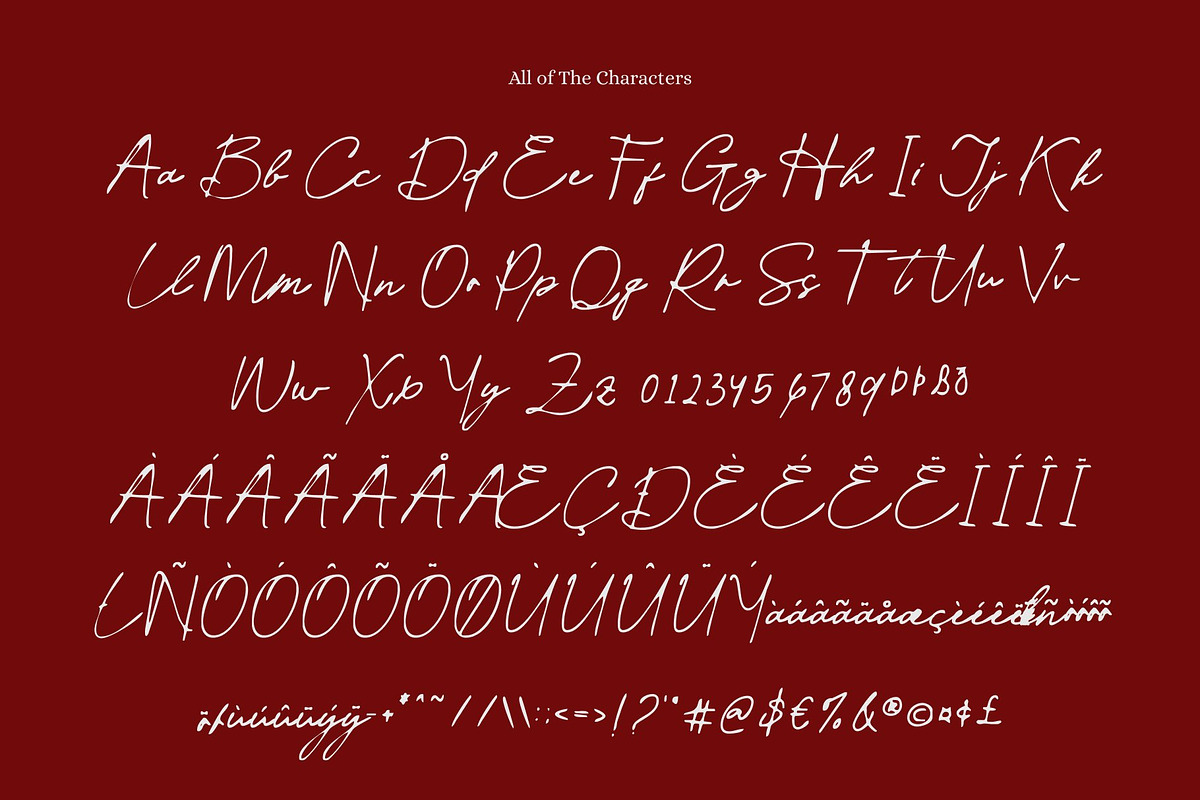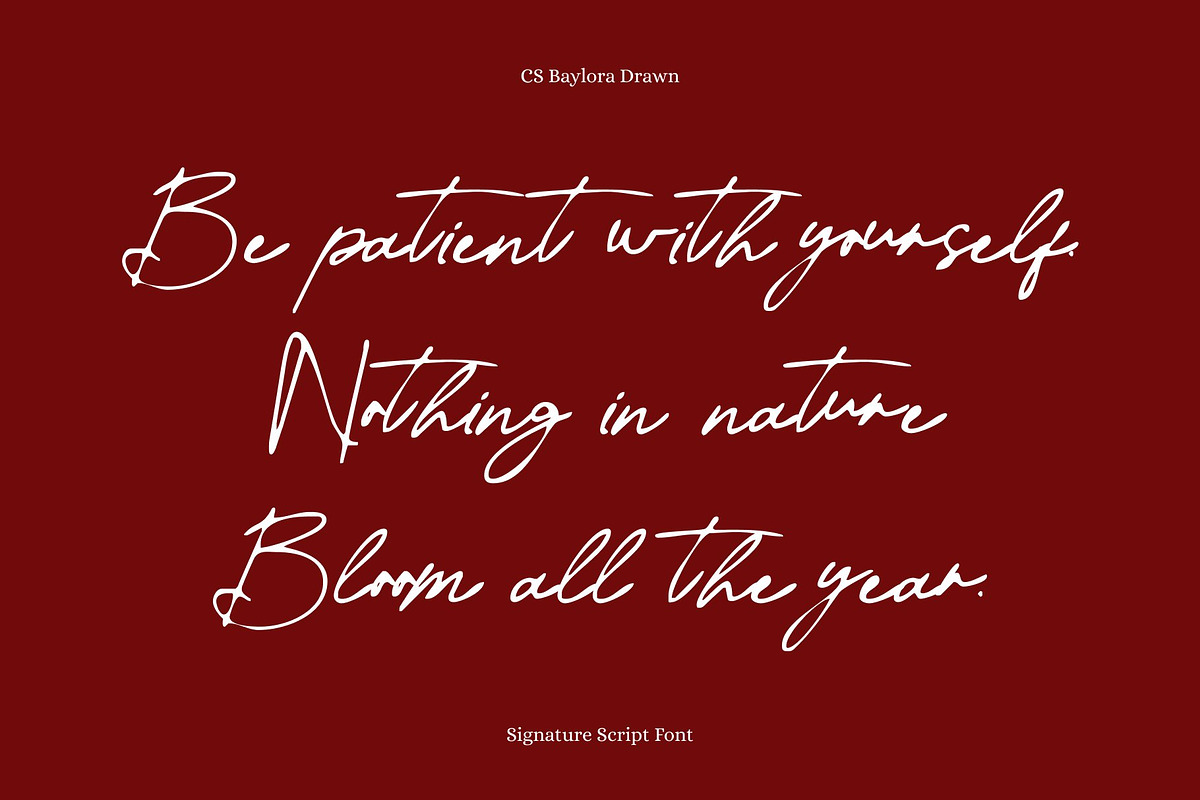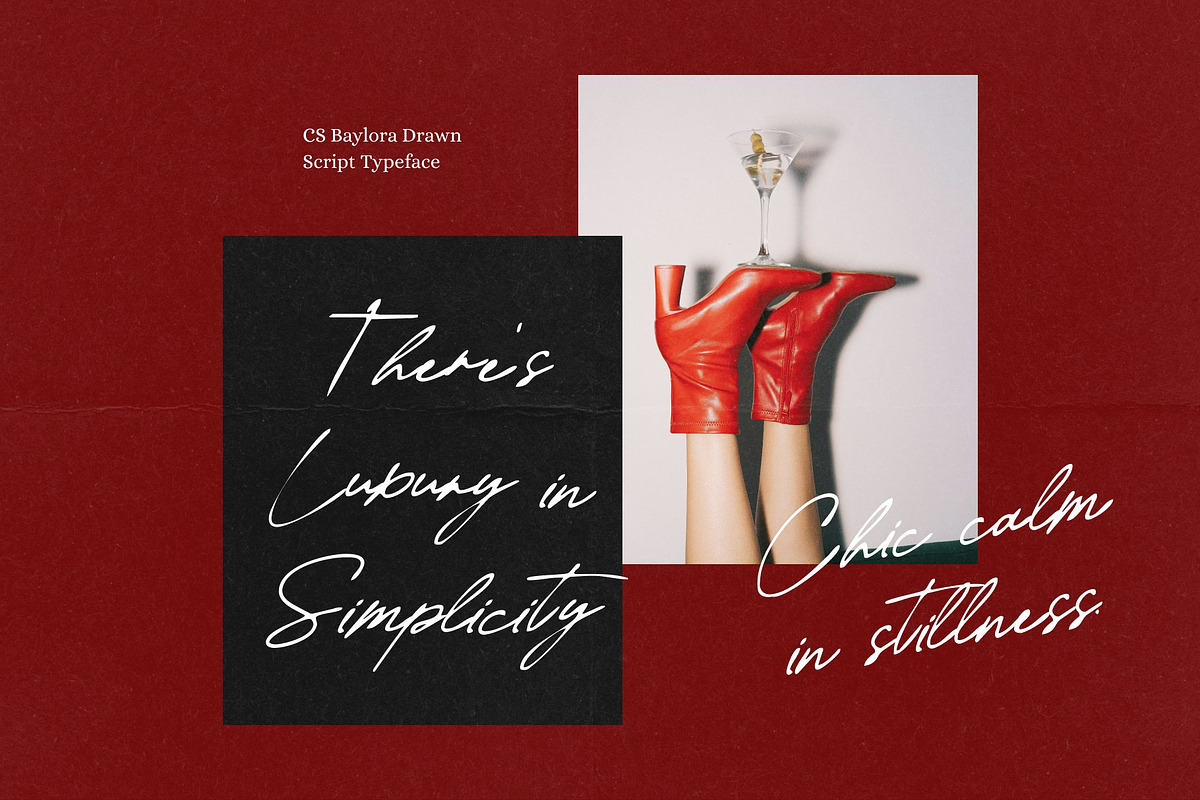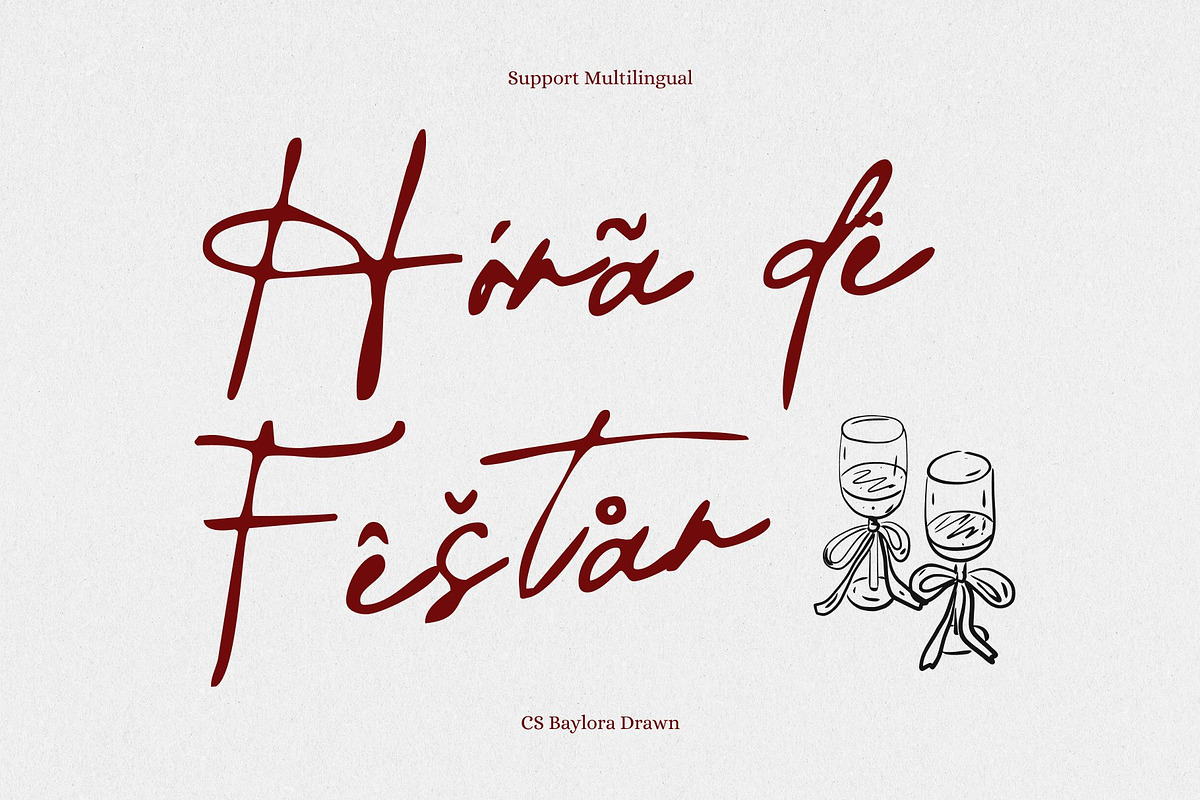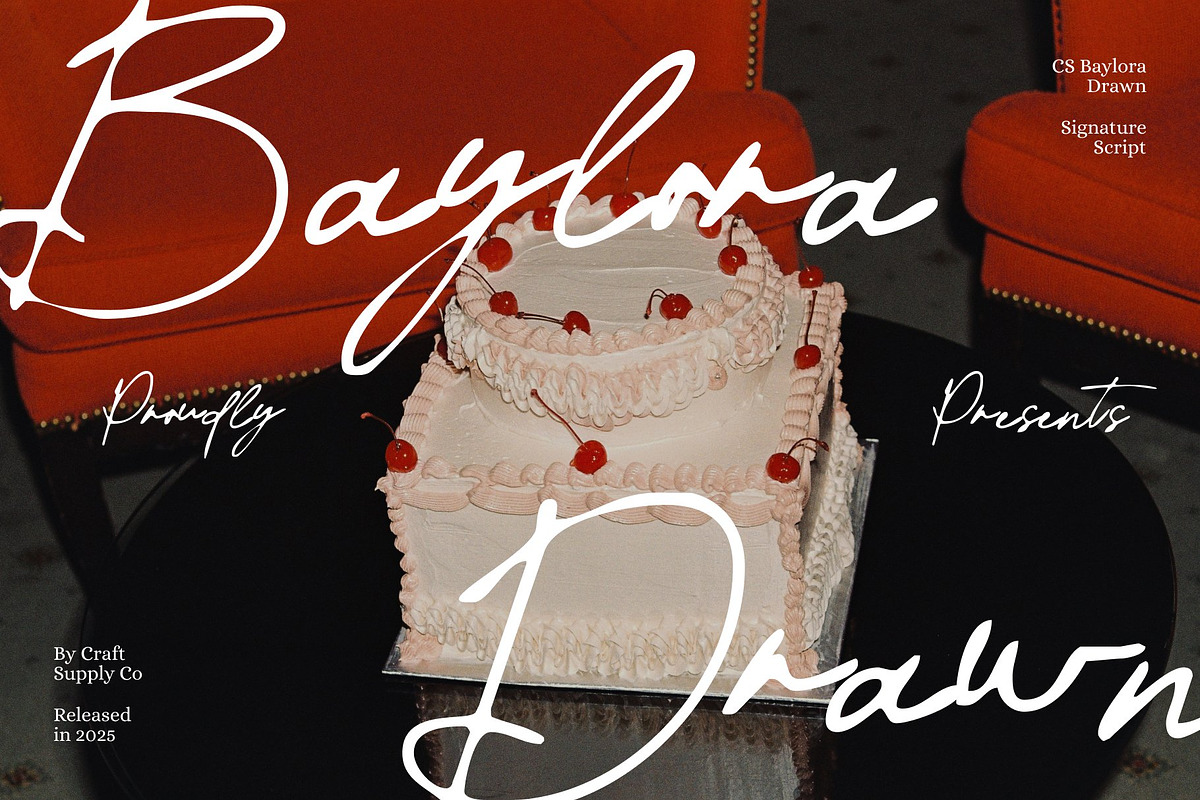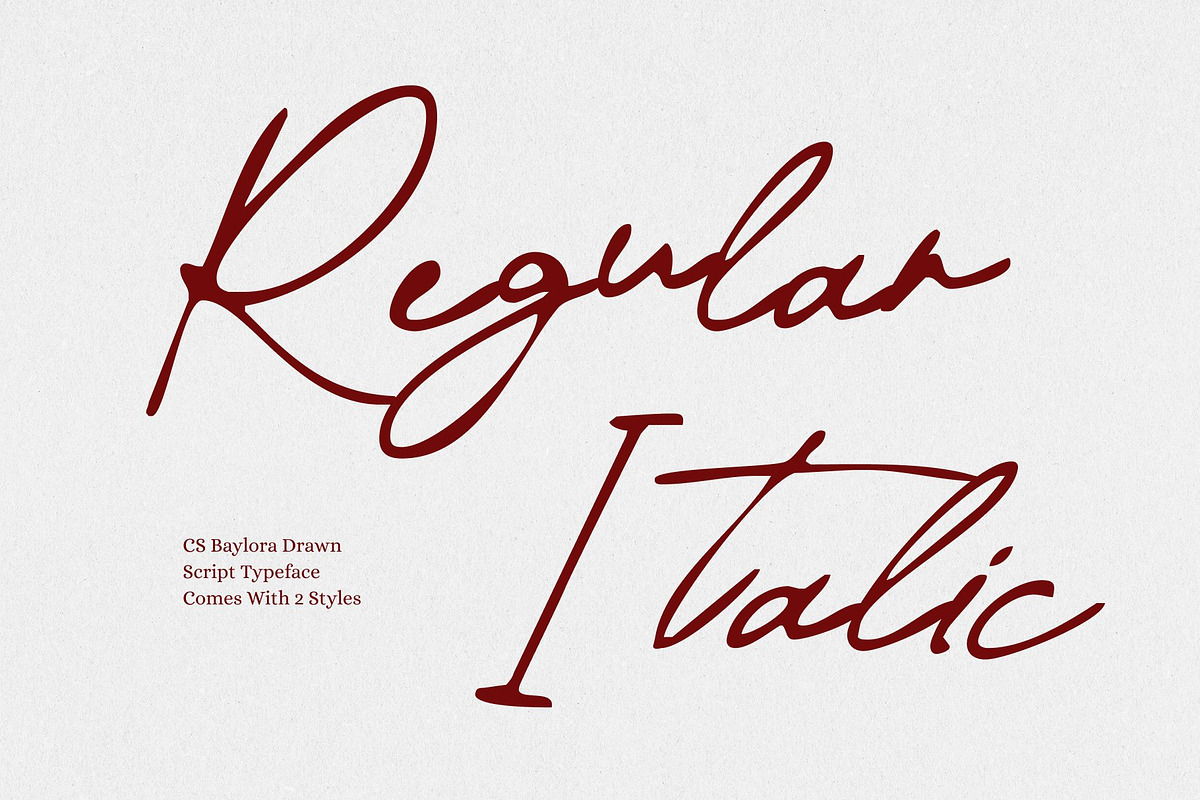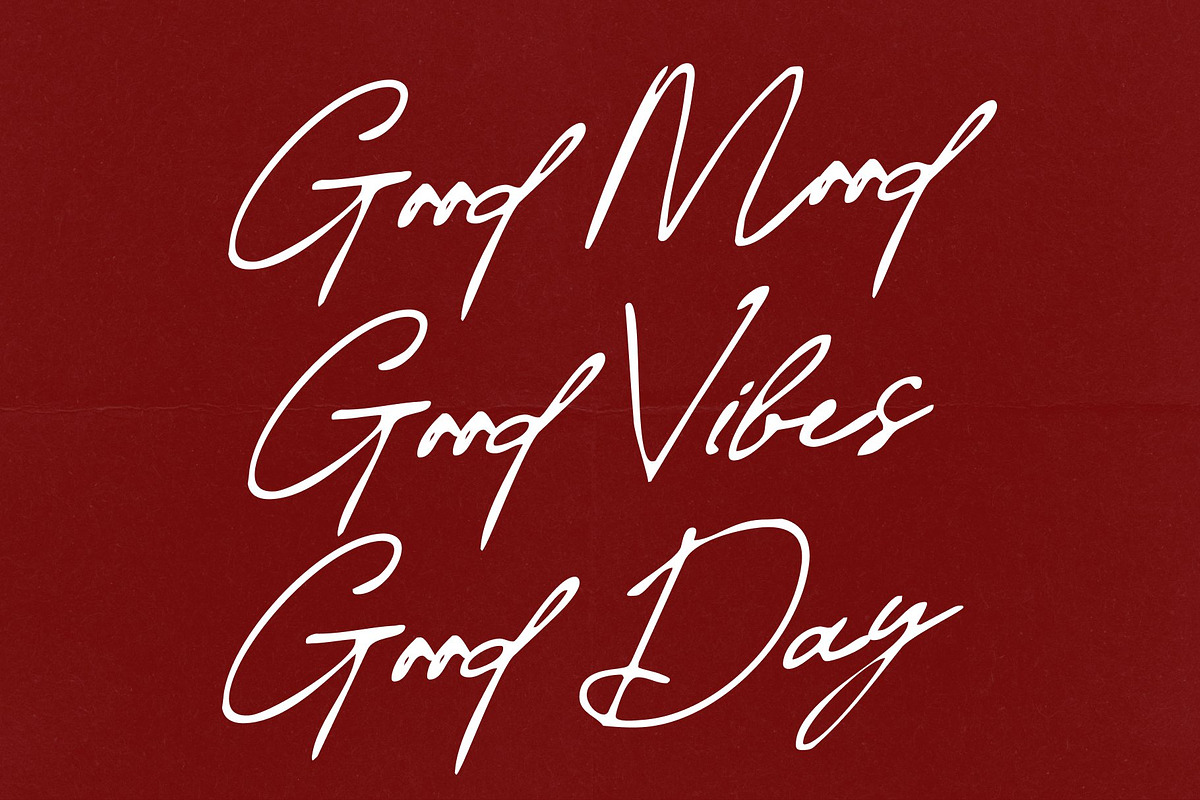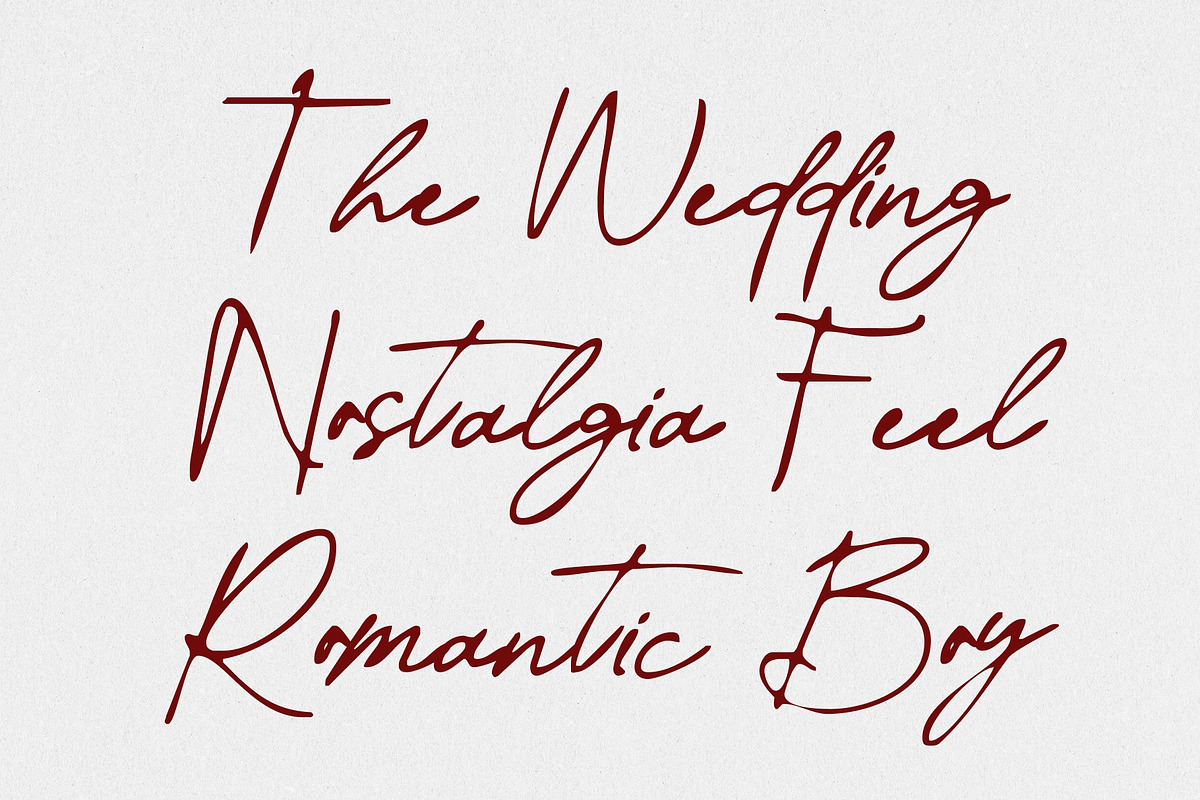
CS Baylora Drawn
CS Baylora Drawn – Elegant Signature Script with Personal Sophistication
Hand-Drawn Elegance with Authentic Flow This is a signature script font that captures the natural fluidity and charm of real handwriting. With its drawn effect, each stroke gains a subtle texture and organic variation, giving the font a personal, handcrafted feel that feels both sophisticated and approachable.
Smooth, Luxurious Signature Flow Every letter in this font flows gracefully, mimicking the motion of ink gliding across paper. Its refined curves and delicate connections create a sense of elegance and harmony, perfect for designs that demand both beauty and a personal touch. The natural, textured appearance adds depth and authenticity, enhancing the font’s high-end aesthetic.
Distinctive Character for Stylish Branding With its unique signature personality, this font brings individuality to every project. Its expressive forms and graceful details make it ideal for establishing memorable identities, elevating designs with a sense of exclusivity and personal sophistication.
Perfect for Luxury Logos, Branding, and Invitations Whether used for boutique logos, product packaging, monograms, or elegant event invitations, this font delivers a refined, handwritten charm. This font transforms text into a statement of style and exclusivity, adding a handcrafted touch that feels polished, personal, and unmistakably luxurious.
- CS Baylora Drawn Regular
- CS Baylora Drawn Italic